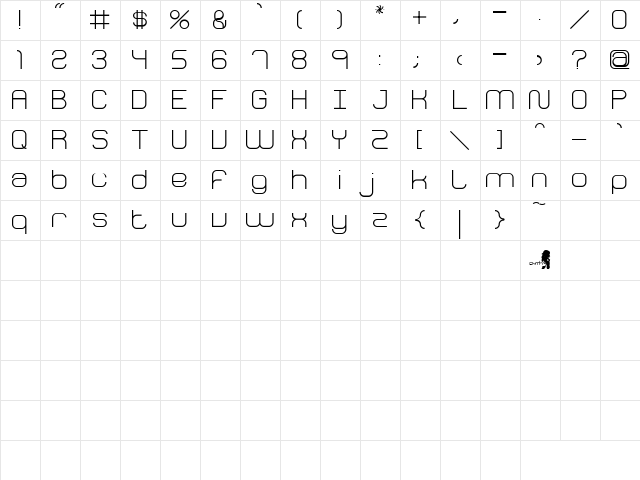
SM_perceptionisM Regular
Design Context for SM_perceptionisM Typeface
SM_perceptionisM is a composed and adaptable typeface that performs quietly and consistently across a wide range of design contexts.